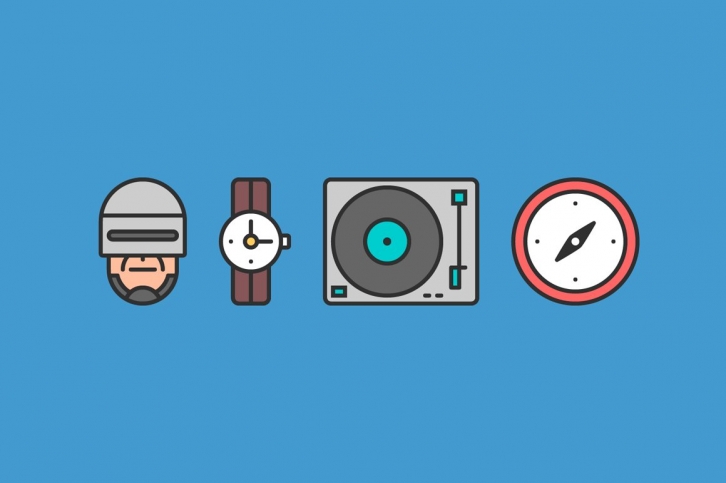
RNS Pictografica Dispositivos has a streamline flavor, pictographical and iconic font of contemporary and retro electronical devices, and some robots. It is comprised of 135 glyphs with rounded corners and light weights. Recommended for clean and crisp compositions.